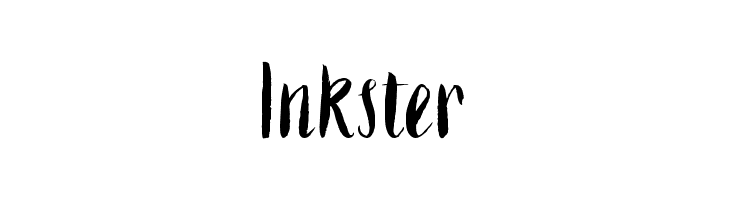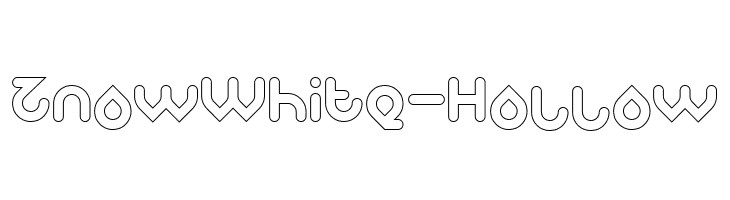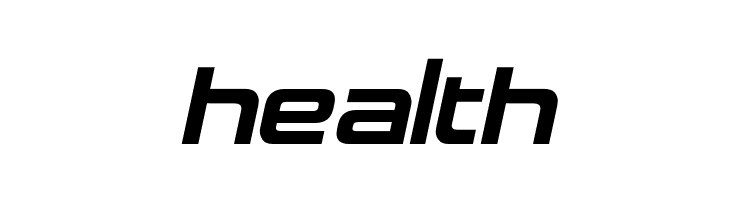
An elegant script font with a flowing, cursive style and sophisticated curves.
A bold, expressive brush-style font with dynamic strokes.
Bold, italicized font with a dynamic and modern style.
A bold, angular font with a leftward slant and a modern, dynamic style.
A modern, outlined font with geometric lines and a sleek, airy appearance.
A bold, geometric font with a three-dimensional effect and double-line outlines.
A playful and casual handwritten font with fluid, connected letterforms.
A bold, dynamic font with a modern yet retro flair.
A bold, textured font with a playful, hand-drawn style.
A bold, expressive handwritten font with playful curves and a casual vibe.